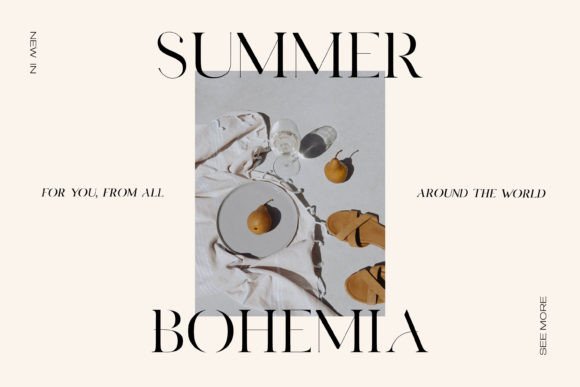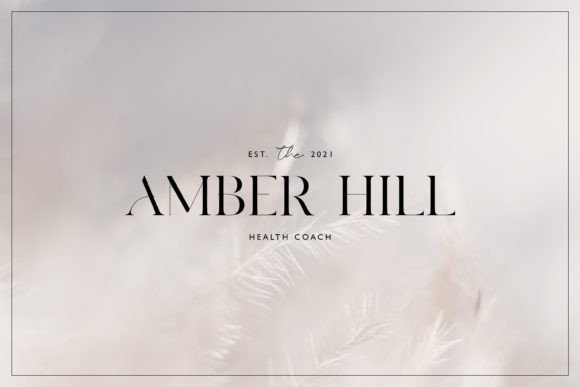
Adore Font
Adore font is an elegant serif typeface with delicate details. This neat font can contribute to the modern and fashionable appeal of any brand.